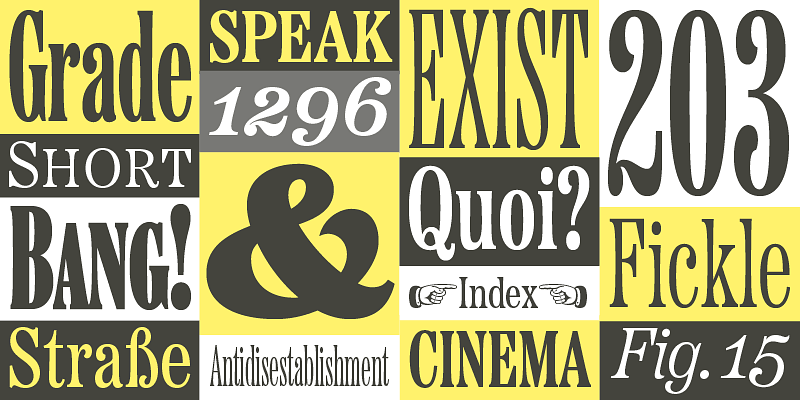
Etna Font Free Download is a bold and elegant serif typeface that commands attention with its vintage charm and refined structure. Inspired by classic editorial styles and traditional printing, Etna brings sophistication and strength to logos, book covers, headlines, branding materials, and high-end packaging.
With its high contrast between thick and thin strokes, sharp serifs, and graceful curves, Etna delivers both power and beauty in your designs. It’s packed with stylistic alternates, ligatures, and multilingual support, giving designers a wide range of creative possibilities across different projects and languages.
Whether you're working on a modern editorial layout or crafting a timeless visual identity, Etna Font Free Download offers a professional, upscale feel. Download it now for testing in personal projects. For commercial use, make sure to purchase the correct license. Add this classic-meets-modern serif to your type collection and elevate your typography game effortlessly.